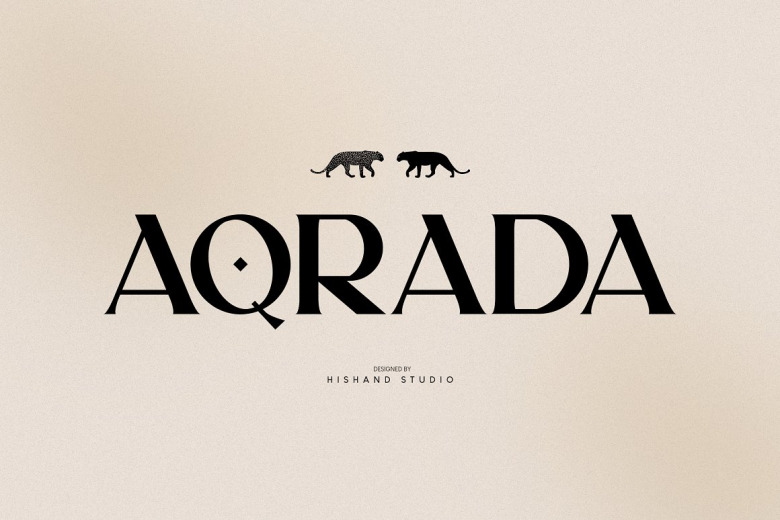
Aqrada Font
Meet AQRADA, a display font that is quite elegant yet classy. Meet AQRADA, a display font that is quite elegant and classy. In fact, it’s perfect for those who need some small me sure of elegancyadang touch modern ness in their de signs.
Aqrada Display Font